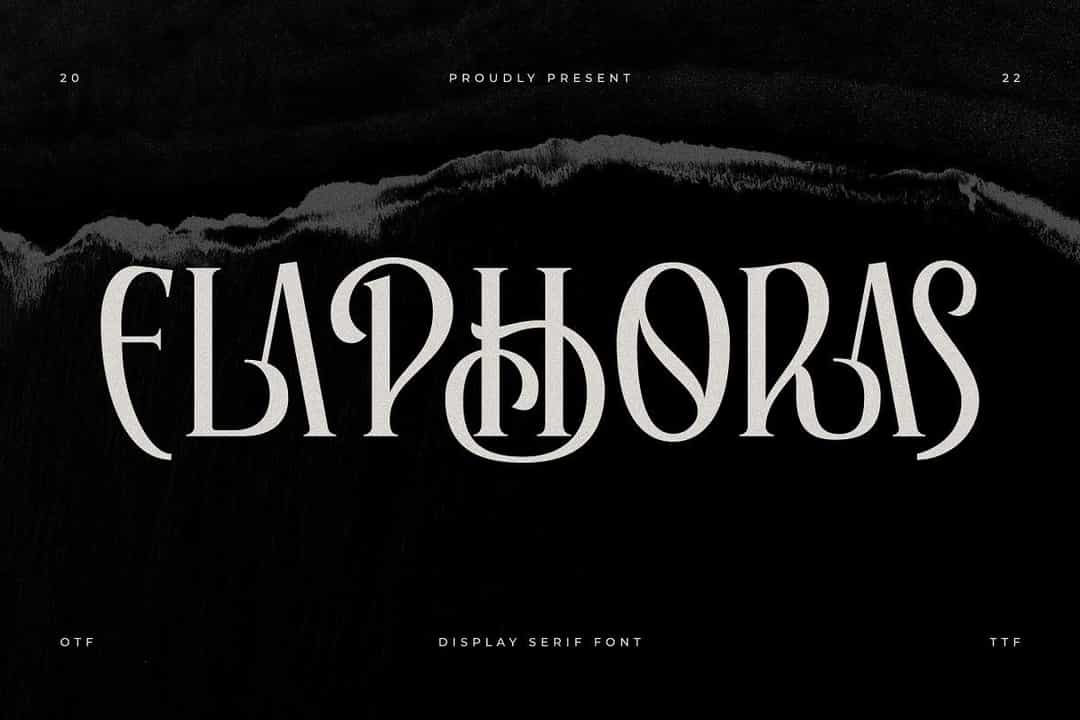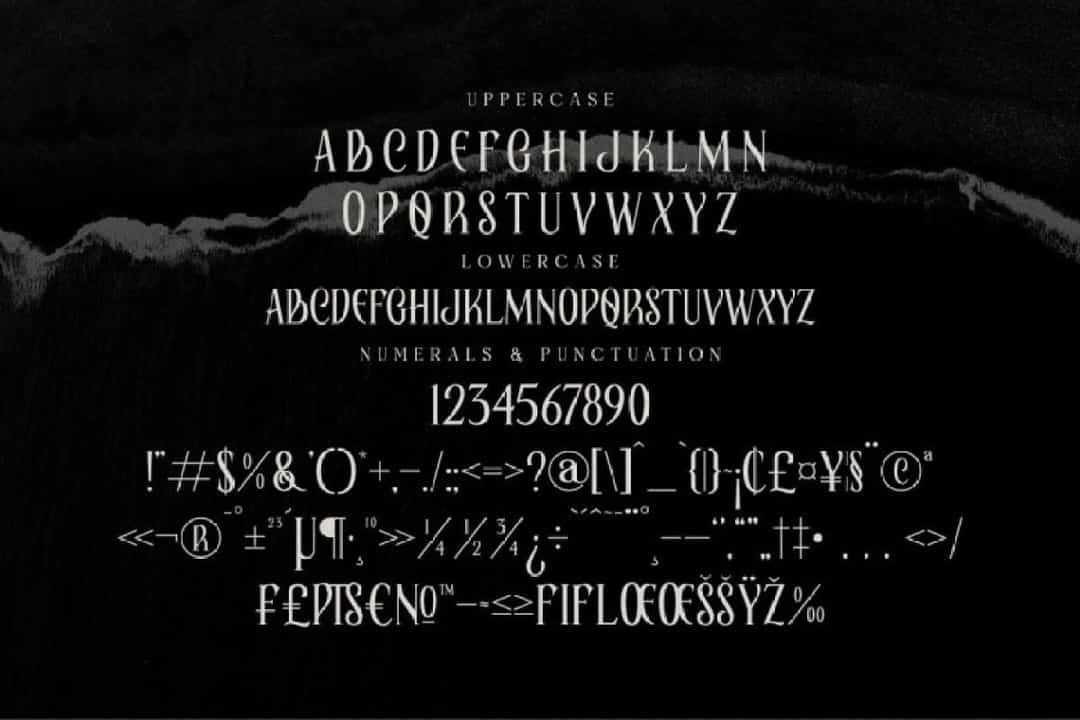
Discover Elaphoras Font, part of the Serif Display collection—a versatile and unique font perfect for adding a personal touch to your projects. Download it for free and enjoy crafting designs with style, from invitations to social media posts. This font is available exclusively for personal use, giving you the freedom to create without limits. Unlock your creativity with Elaphoras Font today!
Elaphorasis is an elegant serif font designed with modern appeal, perfect for creating classic logos, movie, book name designs, clothing brand name designs, magazine letters, quotes and much more. This typeface boasts its distinctive style with modern characteristics.